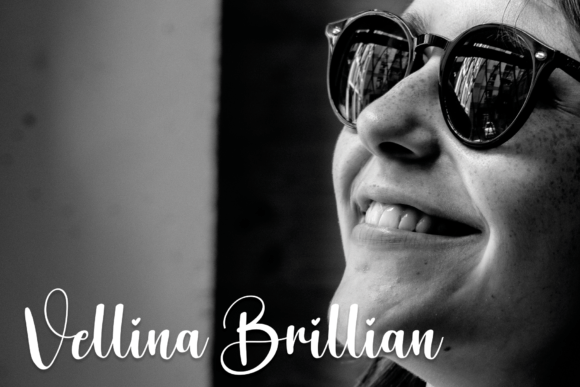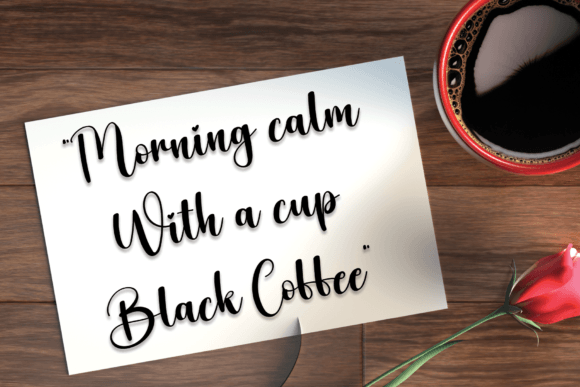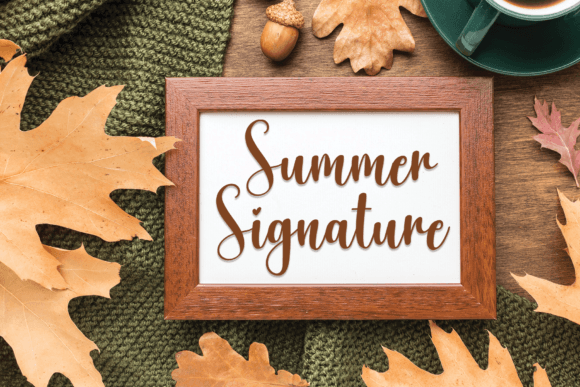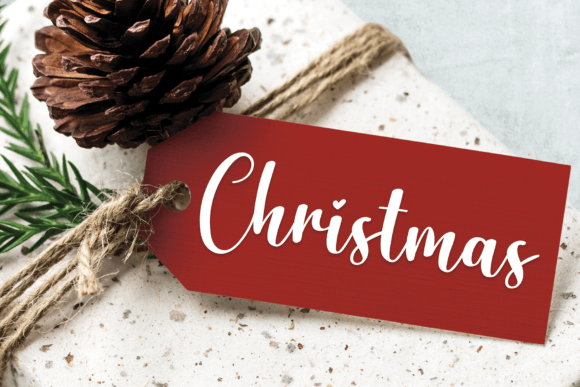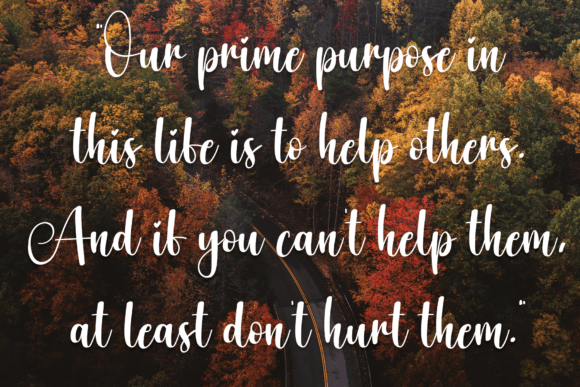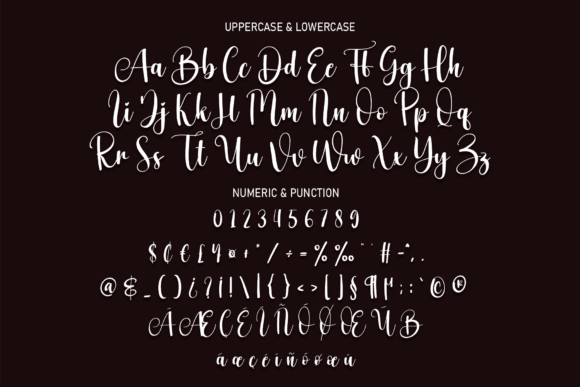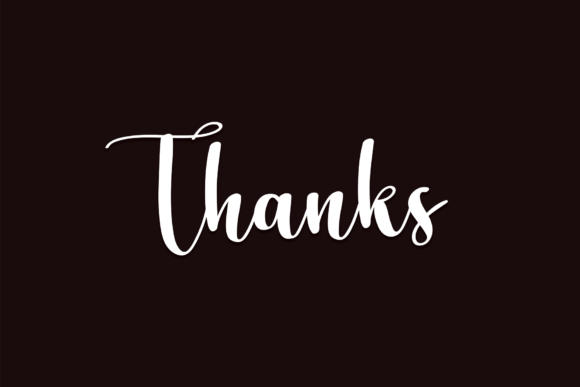
Lightening Font
About Lightening Font
Lightening is a romantic and sweet calligraphy typeface with characters that dance along the baseline. It will add a luxury spark to any design project that you wish to create!